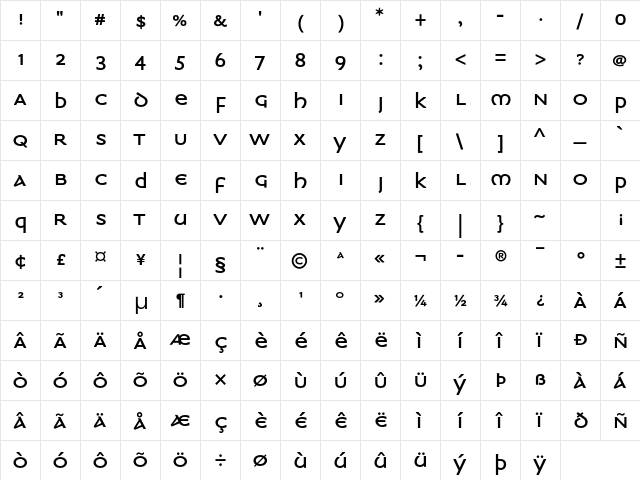
Medea ITC Std Medium Font Preview
Medea ITC Std Medium
Medea ITC Std Medium Font Details
| Designer | Silvio Napoleone |
Design Context for Medea ITC Std Typeface
Medea ITC Std takes a measured approach to typography — its balanced proportions and neutral character make it a reliable workhorse for both digital and print work.